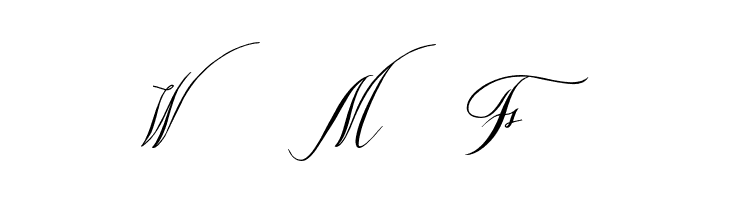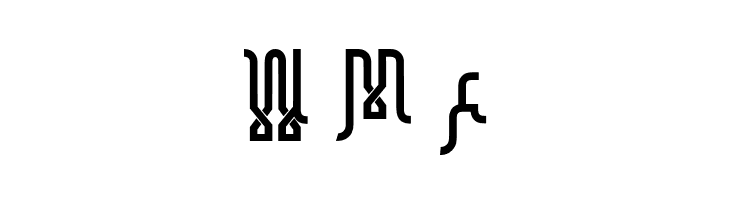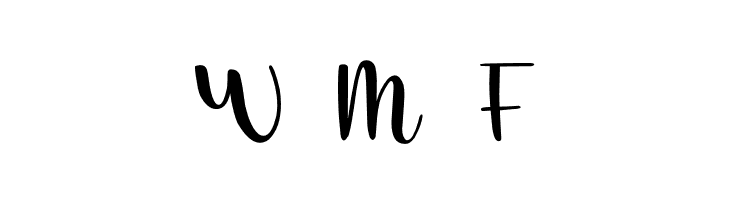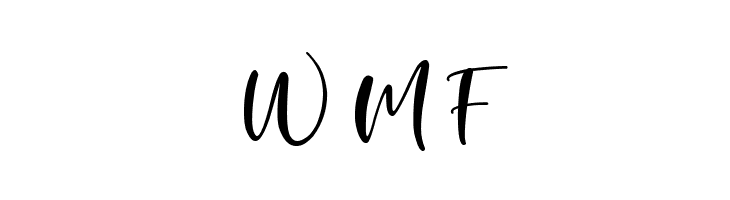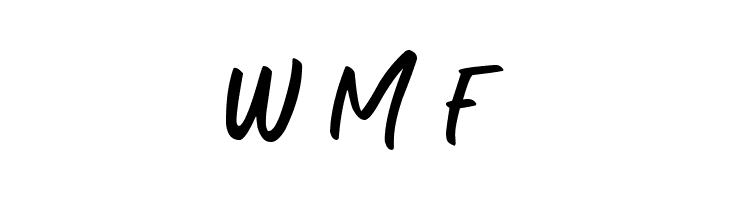
A bold, brush-style font with dynamic, hand-painted strokes.
A bold, angular font with a geometric and aggressive style.
A jagged, edgy font with a hand-drawn, rebellious style.
An elegant script font with high contrast and ornate flourishes.
A modern, cursive font with elegant, flowing strokes and dynamic contrast.
A flowing, cursive font with elegant loops and smooth transitions.
A playful, handwritten script font with dynamic strokes and expressive characters.
A bold, playful script font with a handwritten feel and dynamic character shapes.
A bold, flowing script font with a dynamic, handwritten style.